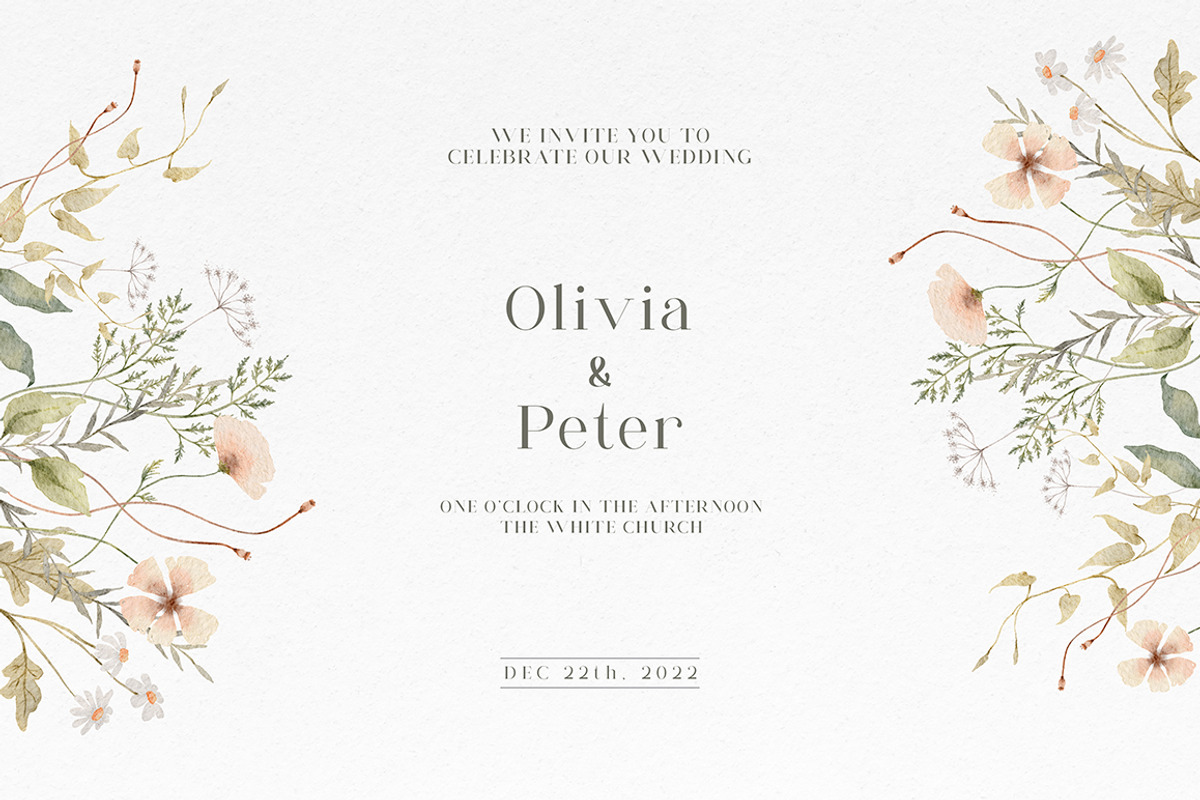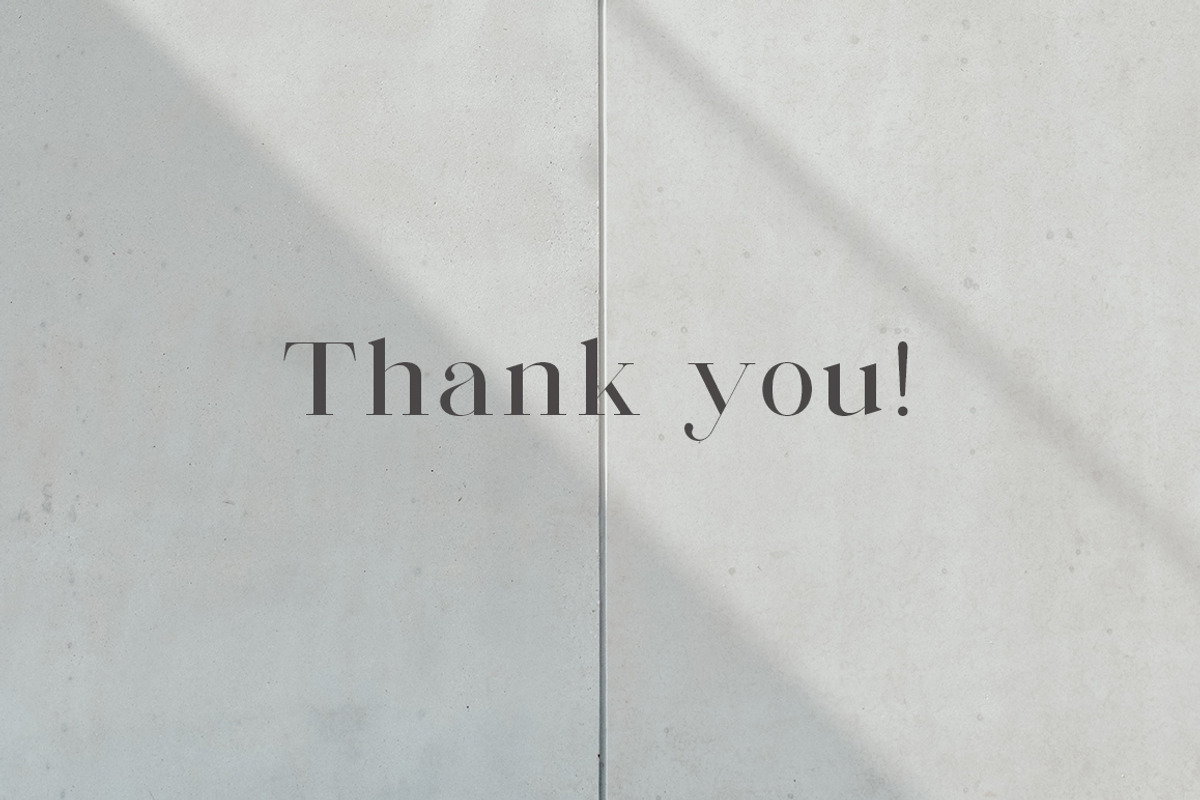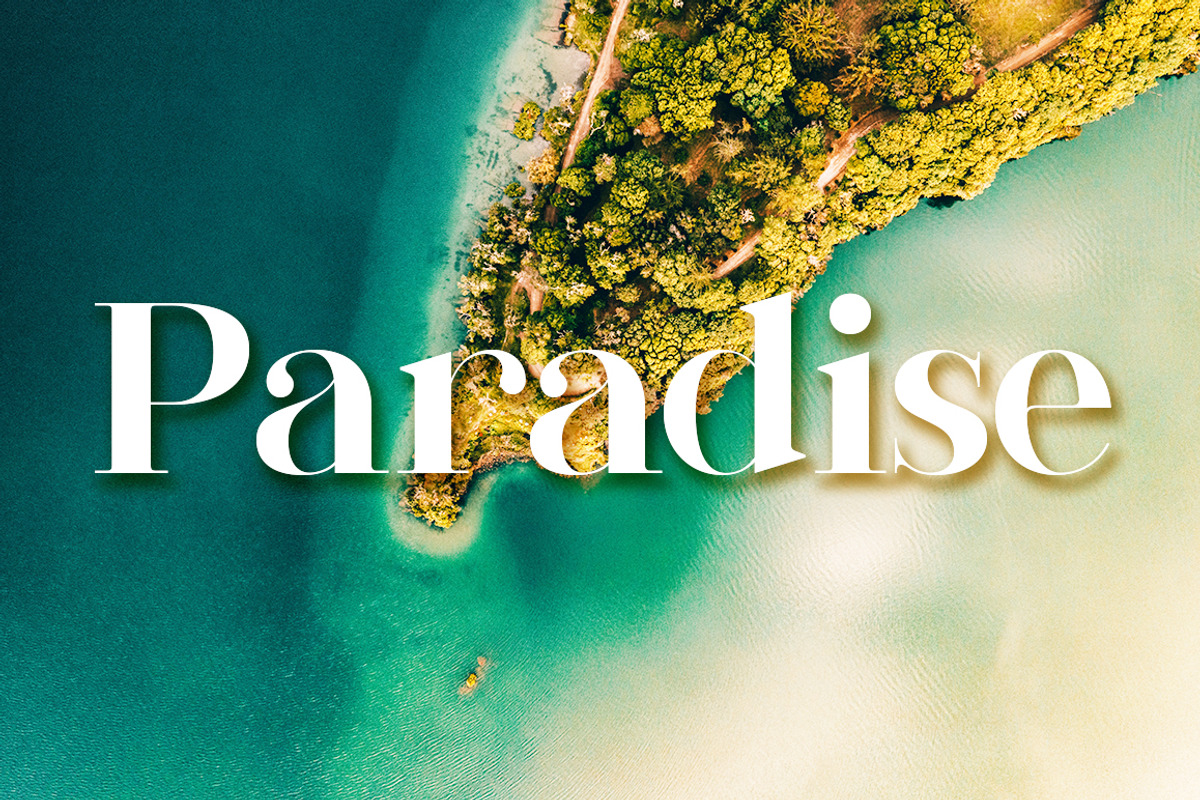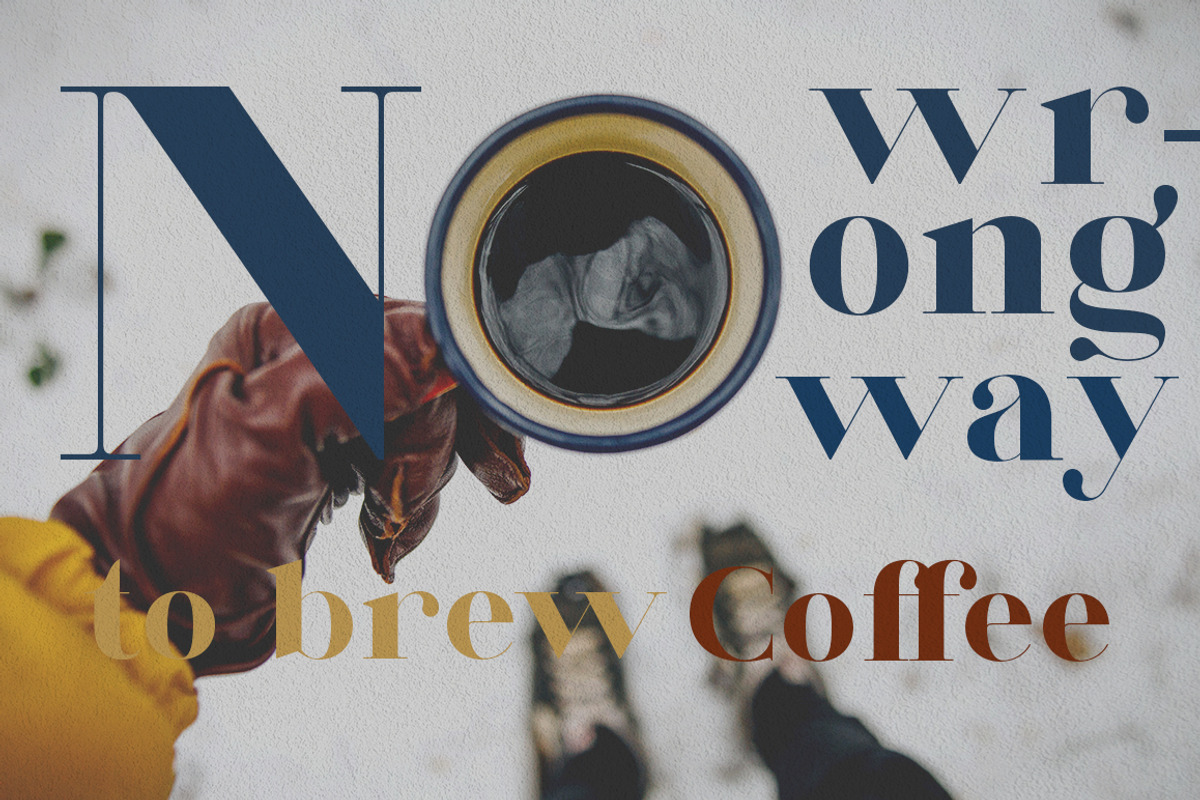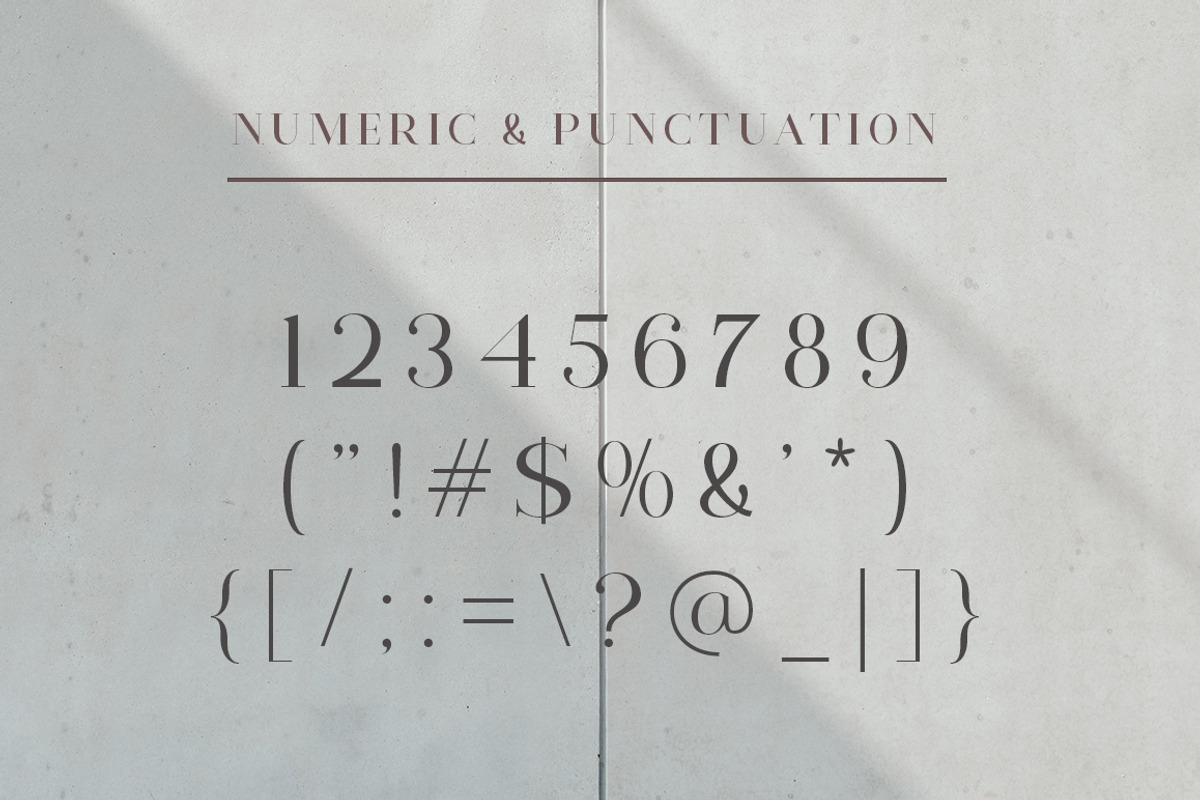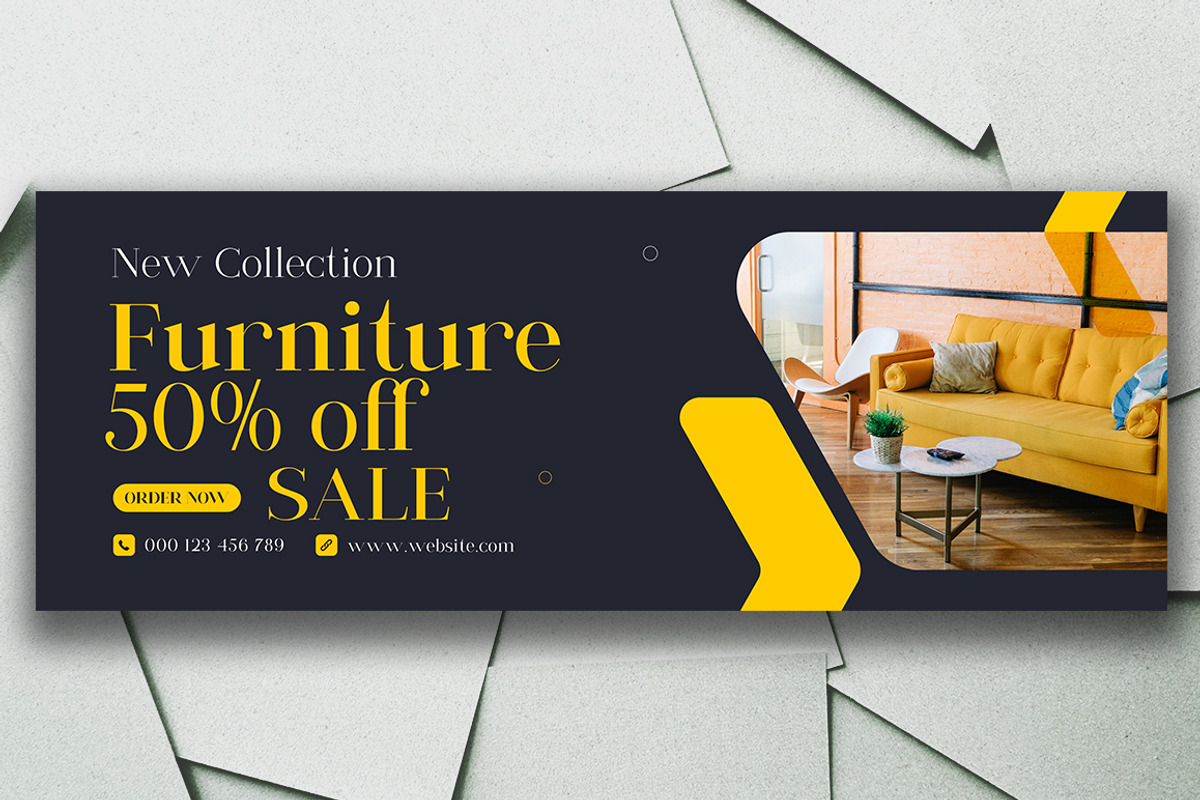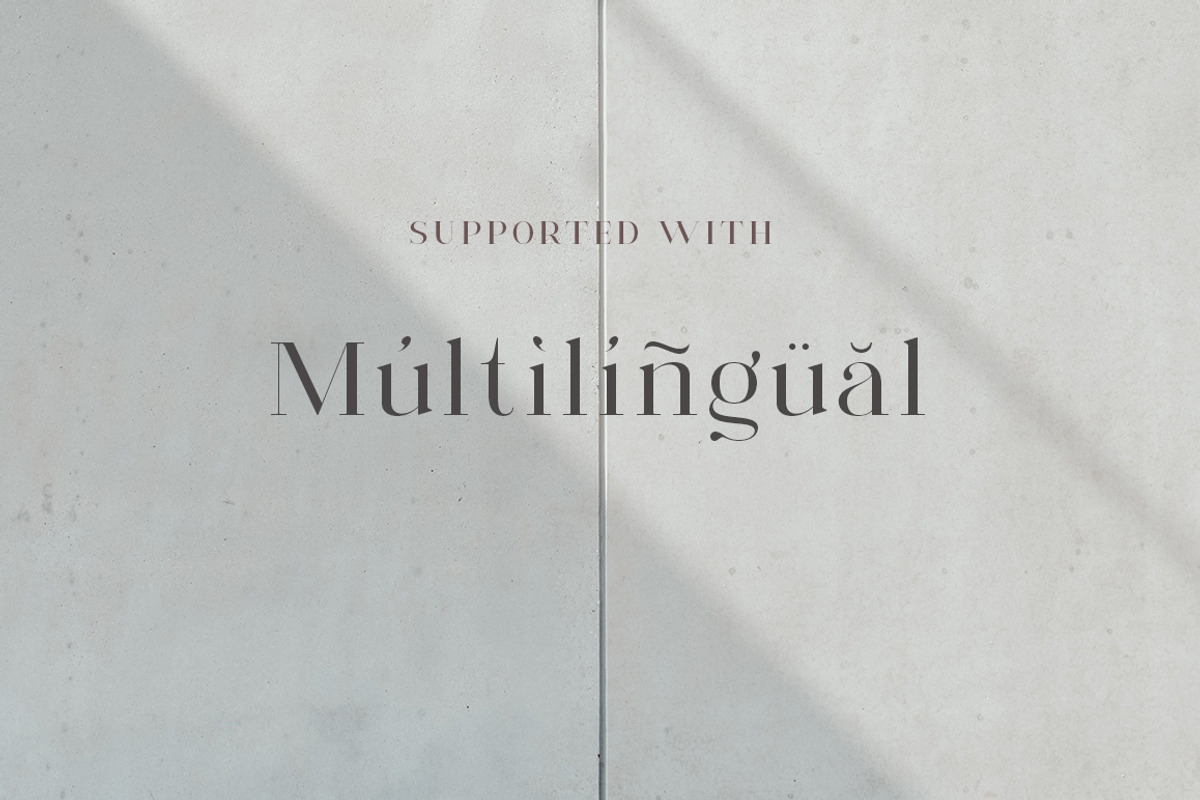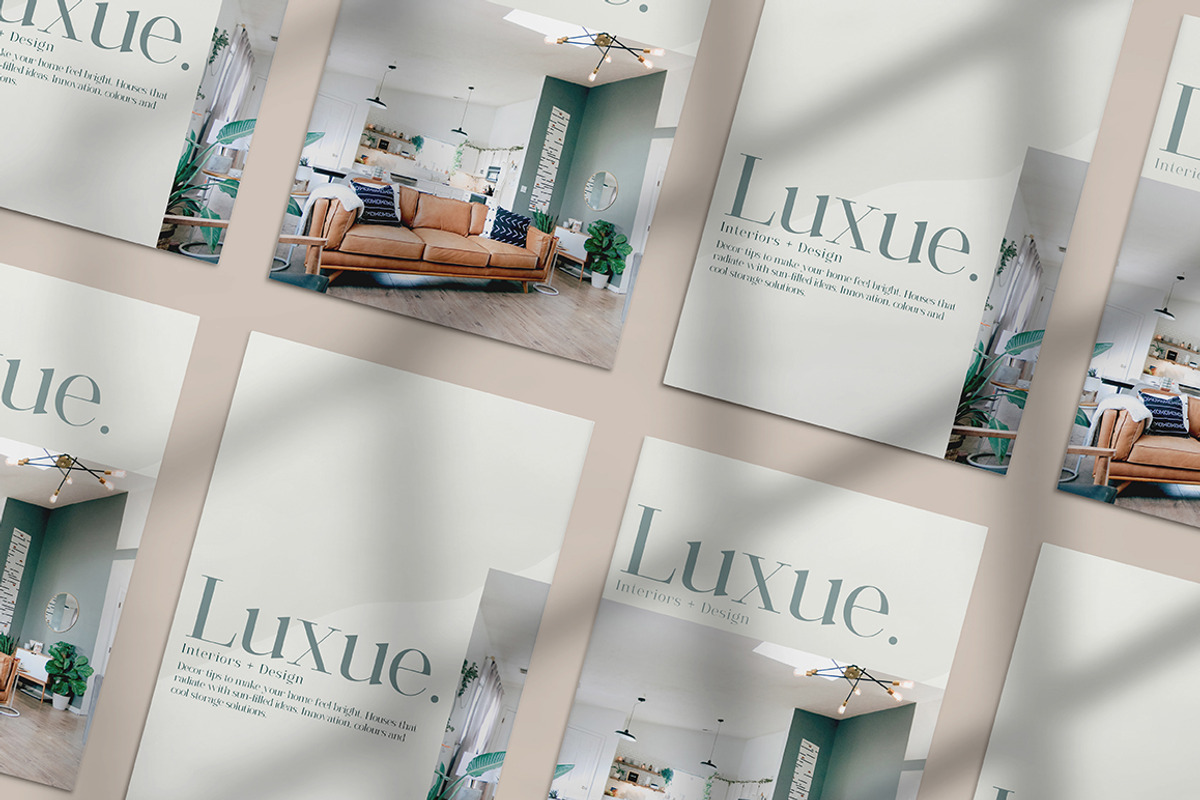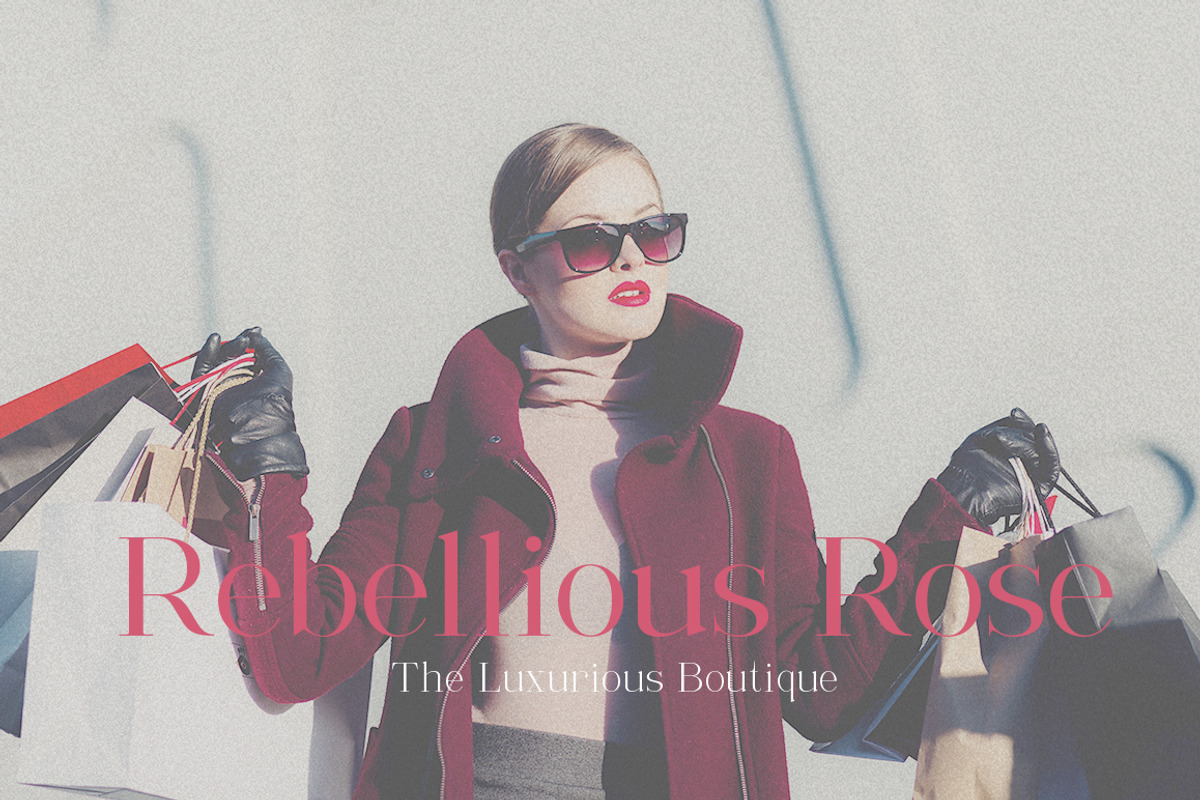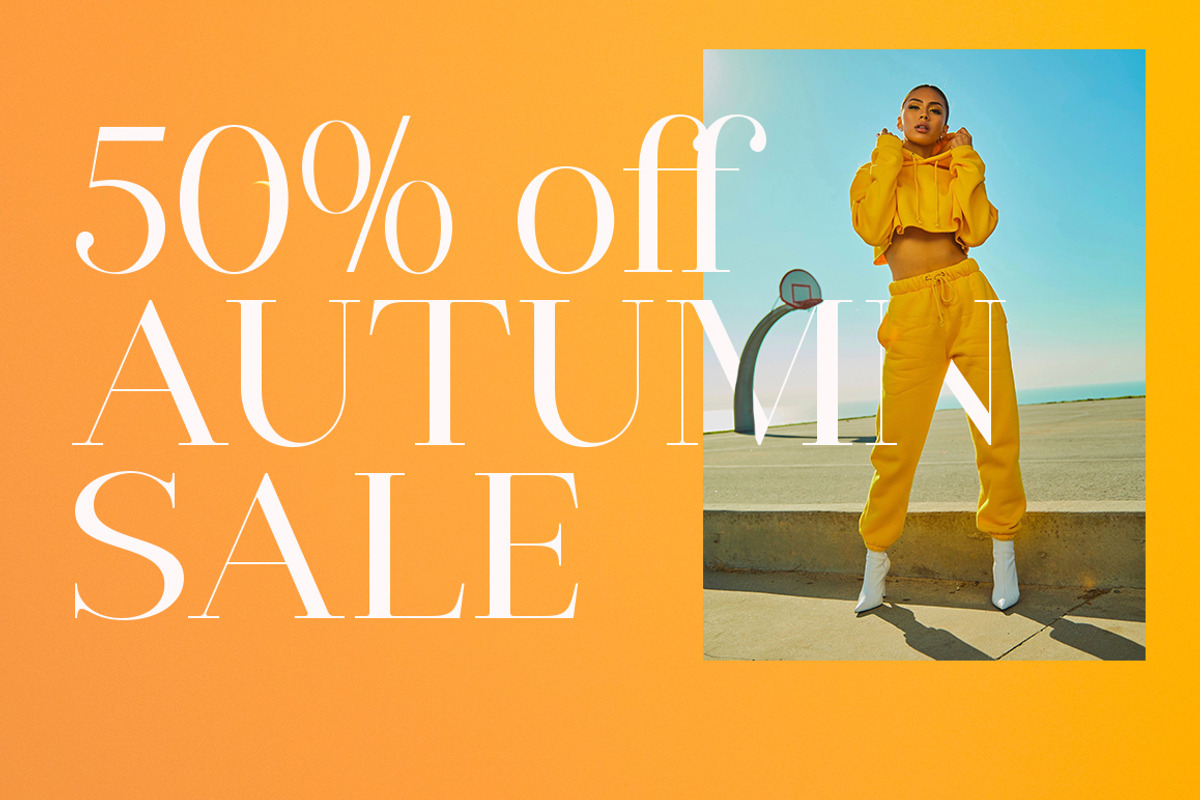
Nectaries
Nectaries is a elegant modern serif font family, good to use font for brand, logo design and any project. Nectaries is also included full set of:
- uppercase and lowercase letters
- multilingual symbols
- punctuation
- numerals